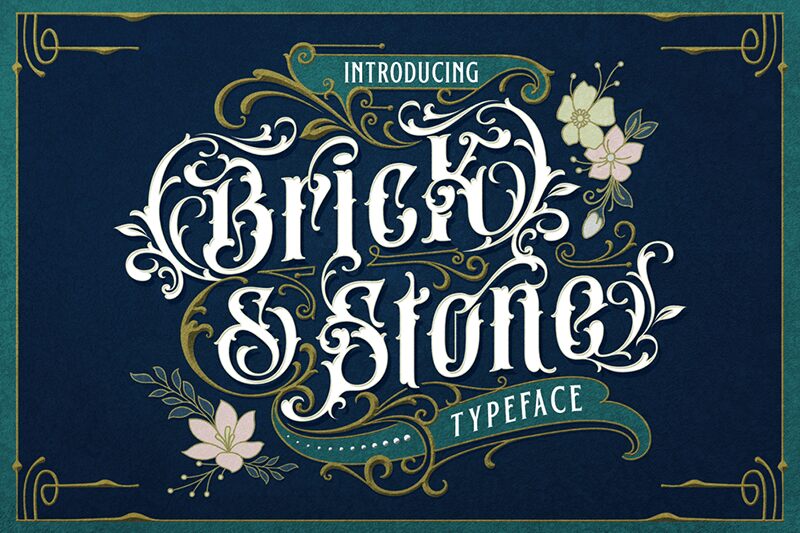
Brick Stone Regular
Brick Stone font by Alit Design is a display typeface combining classic and gothic styles. The condensed font follows a retro style offering an attractive visual that stimulates the audience with its dramatic flair, historical influence, and elaborate curves. Brick Stone is rather decorative adding elements of ornaments at different parts.
Use it for vintage branding, place it in book covers, or use its features on magazine headers and advertising projects. In addition to web design, app design, social media posts, movie titles/credits, posters/flyers designs are guaranteed upgrades!